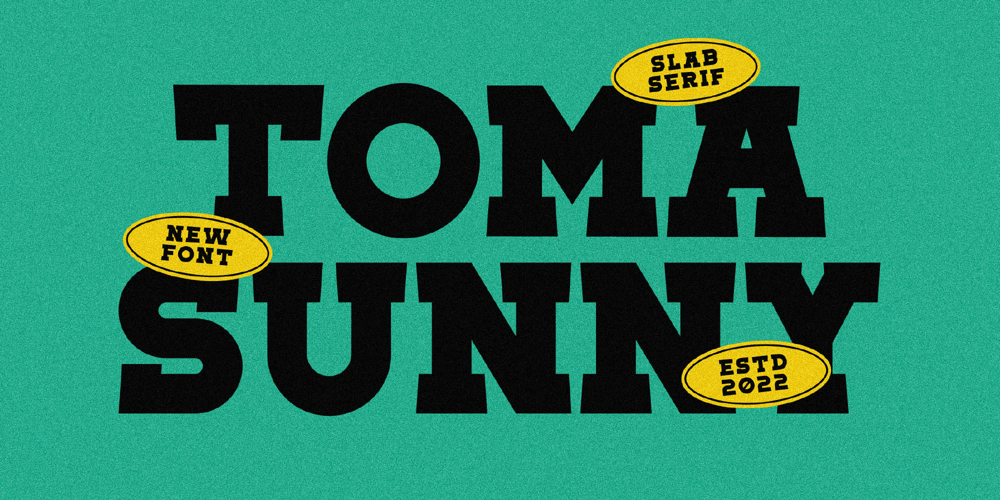
Toma Sunny Font Family was designed by Heru Utama Putra and published by Letterena Studios. Toma Sunny contains 2 styles and family package options. Toma Sunny is a modern and classic serif font with a unique style and bold look. This typeface is perfect for an elegant & luxury logo, book or movie title design, fashion brand, magazine, clothes, lettering, quotes, and so much more.